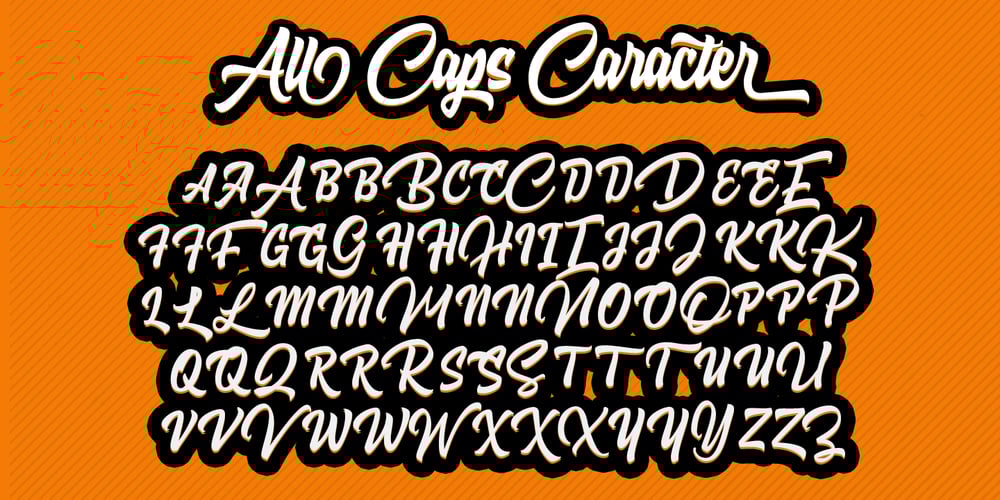
Hoodson Font Family was designed by Hendra Maulia and published by Dirtyline Studio. Hoodson contains 3 styles and family package options. Hoodson Script Inspired by Retro style and combination with Hand Lettering style. I’m made with personality touch every single curve. I hope this can make inspire you from your work. and a very bouncy baseline It has a perfectly paired complimentary marker font , and a super handy set of bonus Swash. Ideal for logos, handwritten quotes, product packaging, header, poster, merchandise, social media & greeting cards. To enable the OpenType Stylistic alternates, you need a program that supports OpenType features such as Adobe Illustrator CS, Adobe Indesign & CorelDraw X6-X7. There are additional ways to access alternates, using Character Map (Windows), Nexus Font (Windows), Font Book (Mac) or a software program such as PopChar (for Windows and Mac).